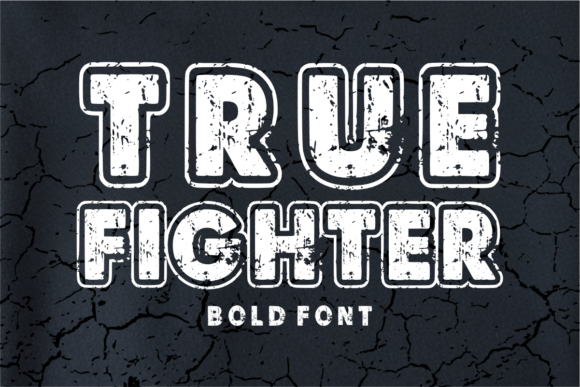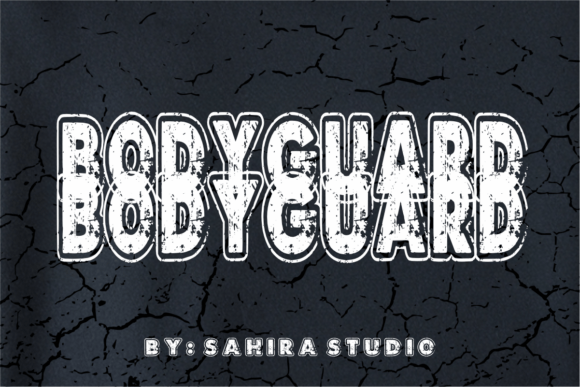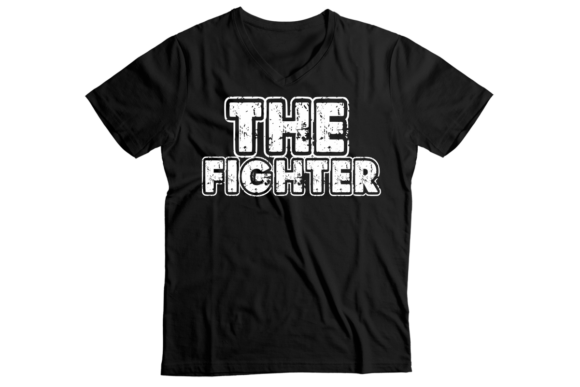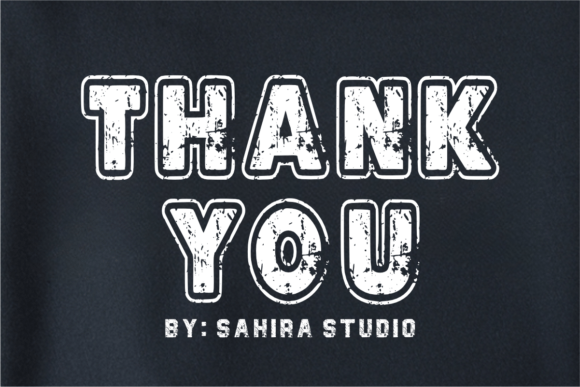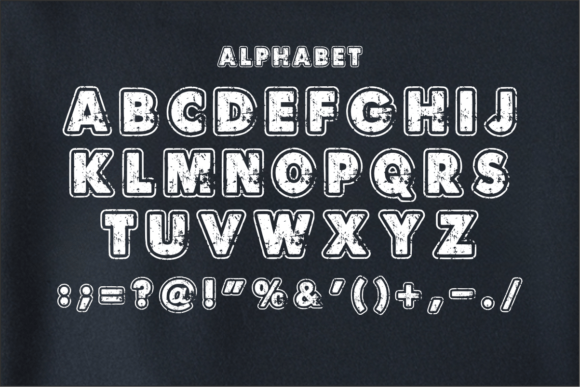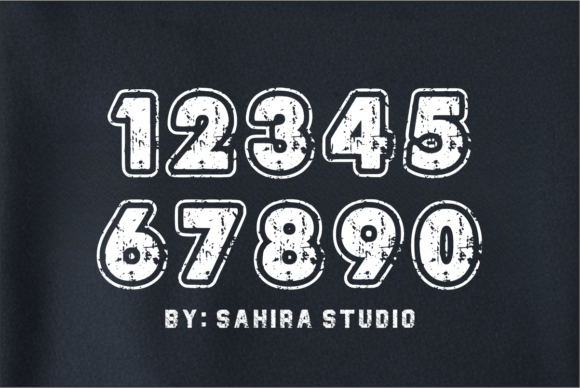
Introduction to Smack Dog Font
Have you ever found yourself scrolling through a design project, desperately searching for the perfect font to give your creation that extra oomph? The struggle is real, especially when you’re working on a project that needs to stand out from the crowd. I recall a particularly frustrating moment when I was designing a custom t-shirt for a friend’s martial arts tournament. The design was coming together beautifully, but the font just wasn’t doing it justice. That’s when I stumbled upon the Smack Dog Font, and my design woes were instantly solved.
The Smack Dog Font is more than just a font – it’s a game-changer for designers. With its bold, grunge-inspired aesthetic and rugged texture, this font is perfect for adding a touch of high-quality, high-energy design to any project. Whether you’re working on a creative project, designing a logo, or creating a bold poster headline, the Smack Dog Font is an invaluable design resource that’s sure to deliver.
Key Features of Smack Dog Font
- High-quality font design with a unique, playful style perfect for creative projects.
Honest Review: Smack Dog Font
As a designer, I’m always on the lookout for unique and high-quality design resources to elevate my creative projects. Recently, I came across the Smack Dog Font, and I must say, it’s been a game-changer for my latest design endeavors.
- High-quality glyphs and a transparent background make it easy to customize and integrate into my designs.
- The font is perfect for creating eye-catching headings and titles, adding a touch of playfulness to my projects.
- ⚠️ The font may not be suitable for formal or professional projects, as its playful nature might not be fitting for such contexts.
- ⚠️ Some users may find the font’s unique style a bit too quirky or overwhelming.
Overall, I’m thoroughly impressed with the Smack Dog Font. It’s a fantastic design resource that adds a fun and creative touch to my projects. I highly recommend it for anyone looking to spice up their designs with a bit of personality.
Smack Dog Font
The Smack Dog Font is a high-quality design resource perfect for creative projects that require a bold and eye-catching touch. With a transparent background, this font is easily customizable to fit any design scheme.
Tips for Getting the Most Out of Smack Dog Font
To get the most out of the Smack Dog Font, experiment with different font sizes, colors, and styles. You can also use the font in combination with other design elements, such as images and graphics, to create a unique and eye-catching design.
The Smack Dog Font is perfect for a variety of creative projects, including brochures, posters, social media graphics, and business cards. Its bold and eye-catching design makes it ideal for grabbing attention and making a lasting impression.
Yes, the Smack Dog Font has a transparent background, making it ideal for use on images or backgrounds with complex designs. This allows you to easily overlay the font on top of other design elements without any visual conflicts.
Is the Smack Dog Font suitable for high-quality print projects?
Yes, the Smack Dog Font is designed to be high-quality and suitable for use in print projects, including business cards, posters, and other marketing materials. The font’s crisp, clean lines and precise typography ensure that it will look great at any size or resolution.